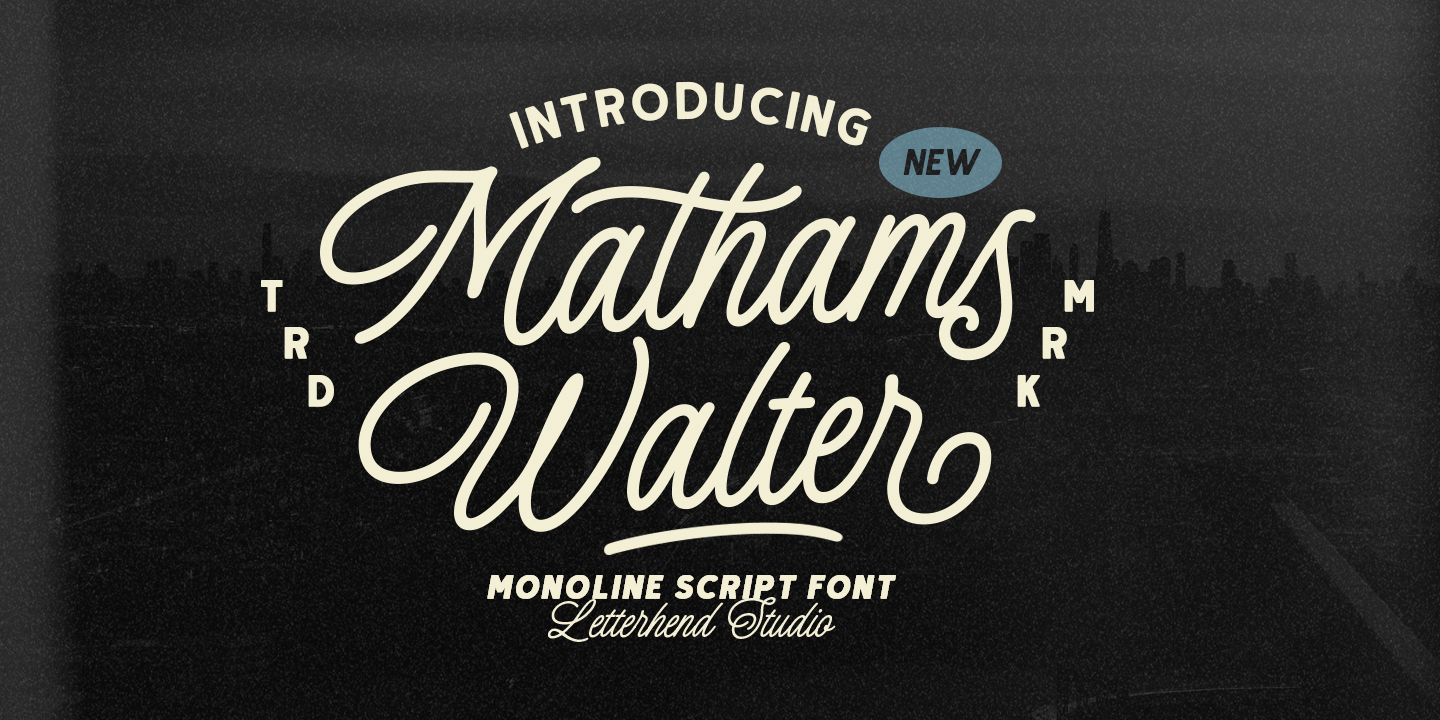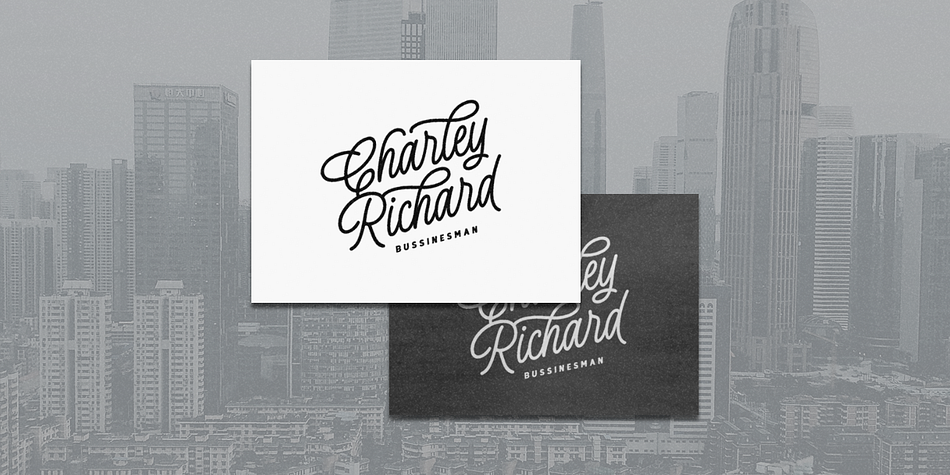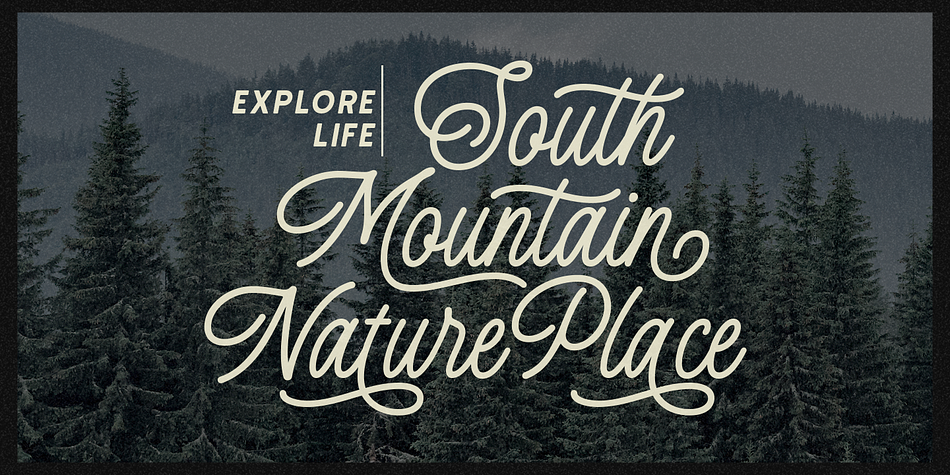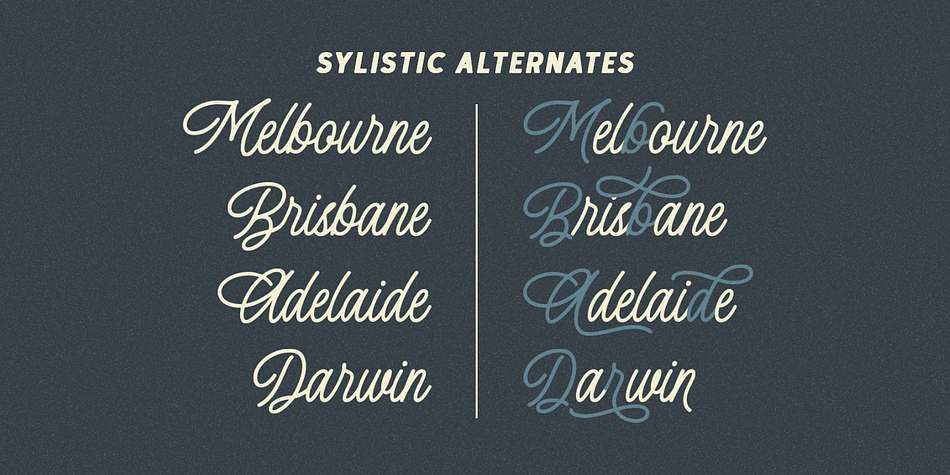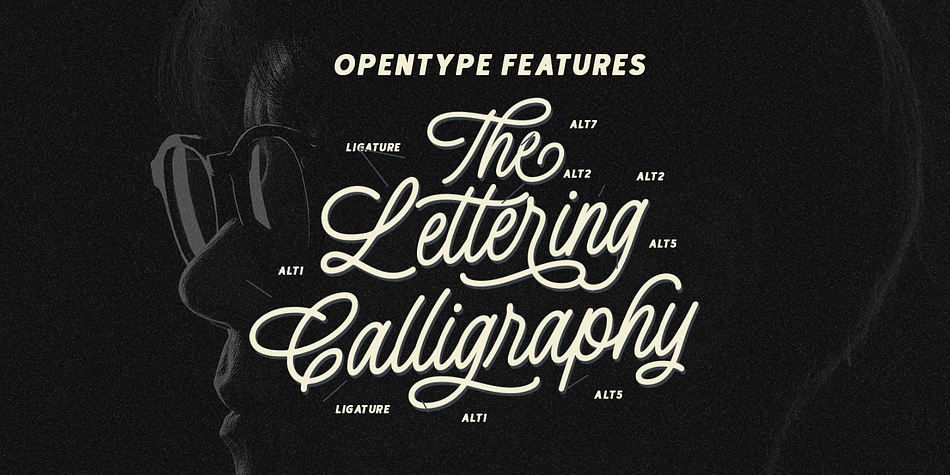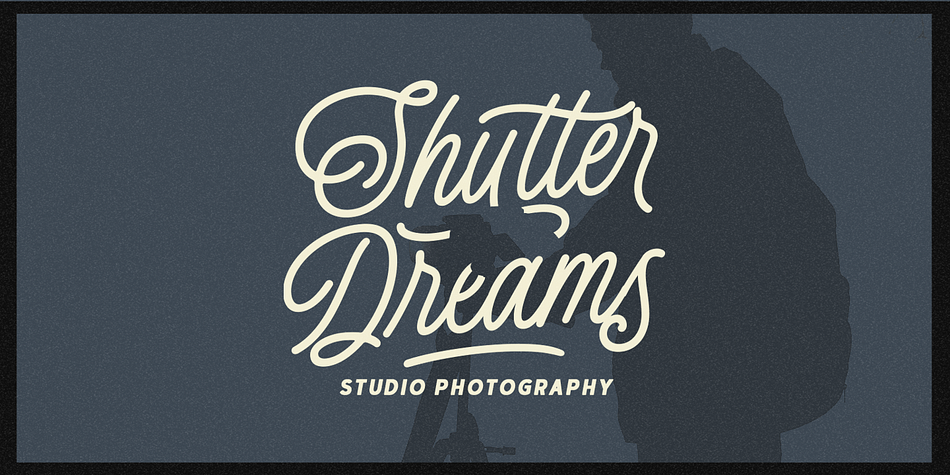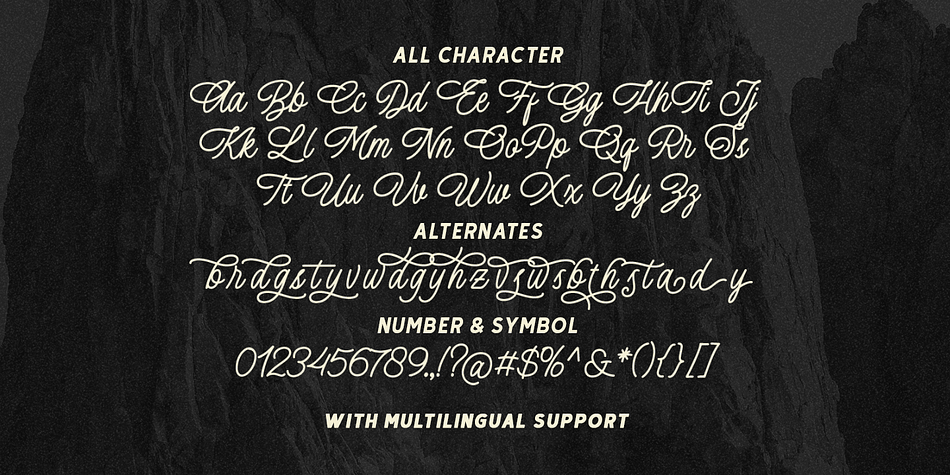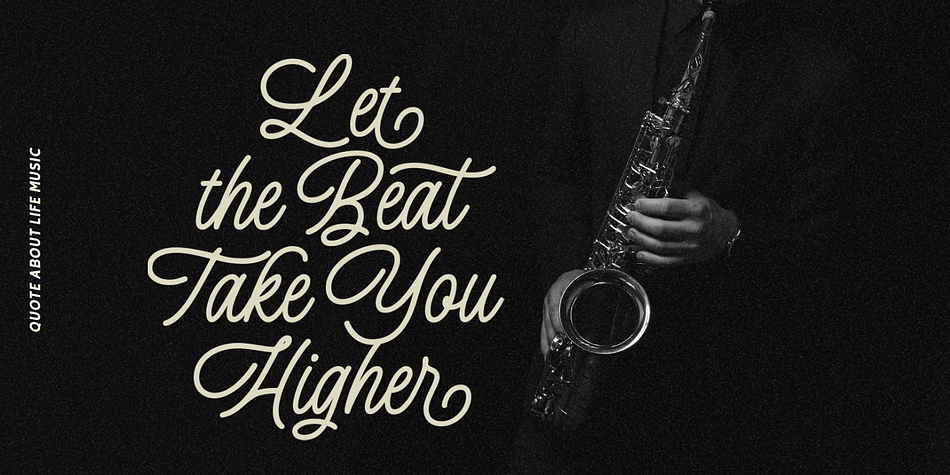
Mathams Walter Script
Designed by Hendry Juanda, Mathams Walter Script is a script font family published by Letterhend Studio.
Mathams Walter is a casual monoline typeface with a charmingly rough version, adding an artistic touch to your designs. This versatile font is designed to capture attention and bring a touch of elegance to any project.
- Alternates & Ligatures